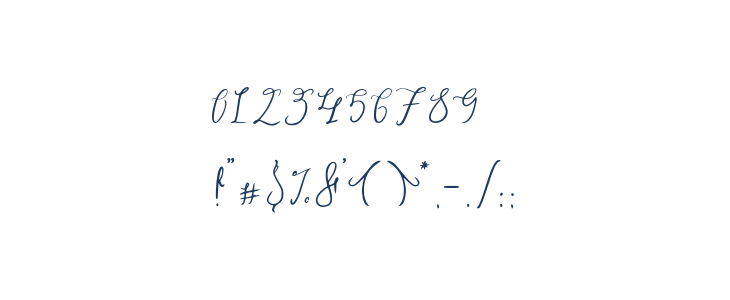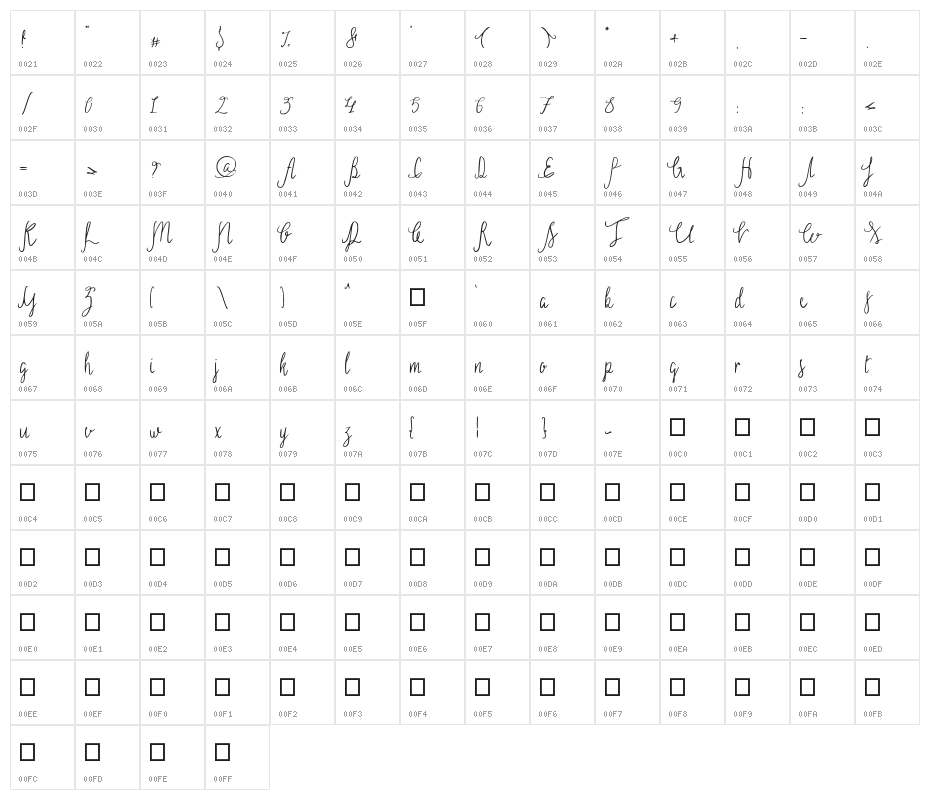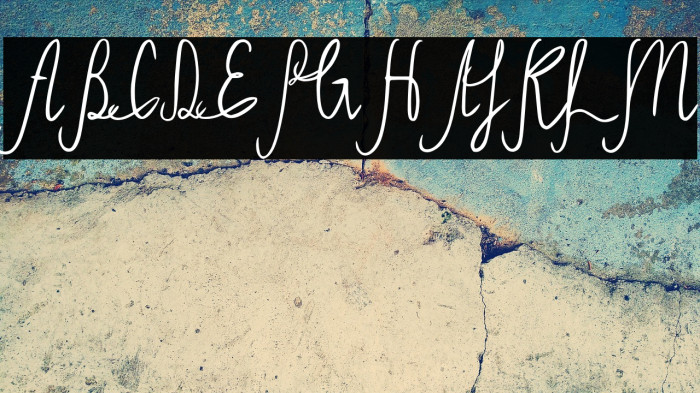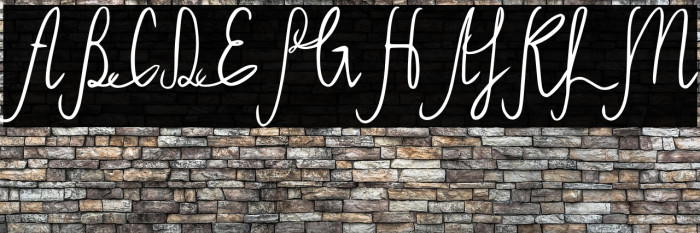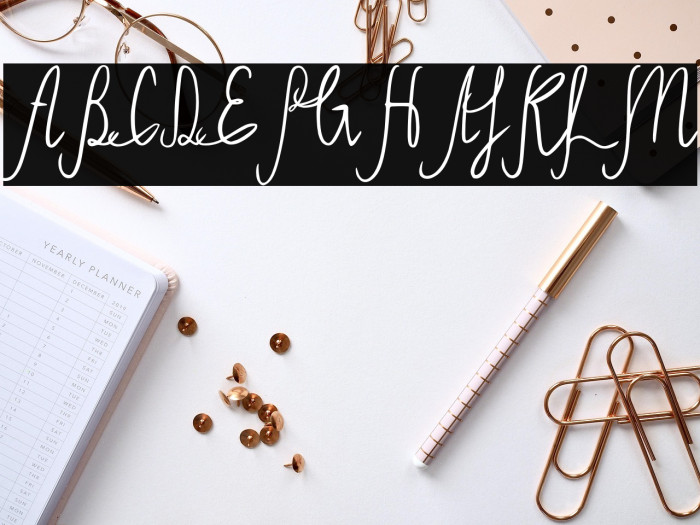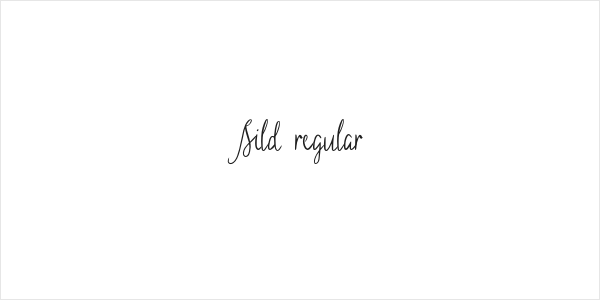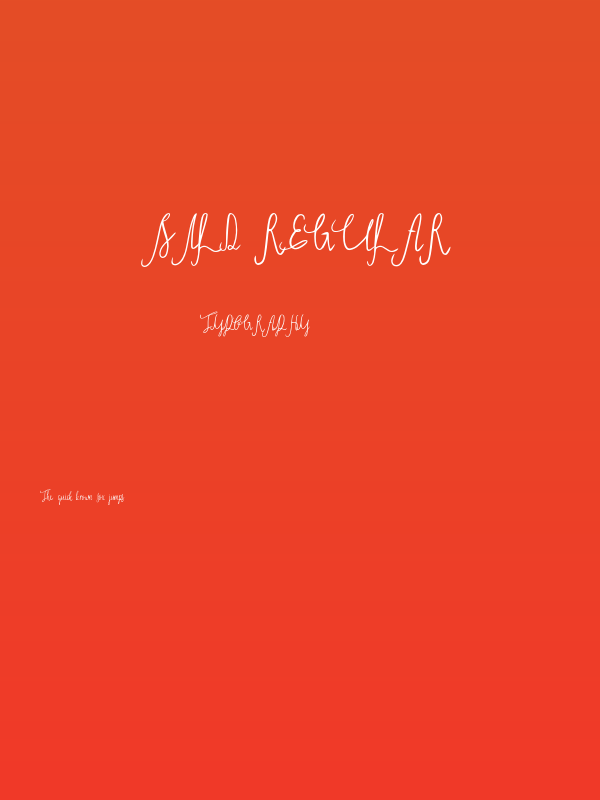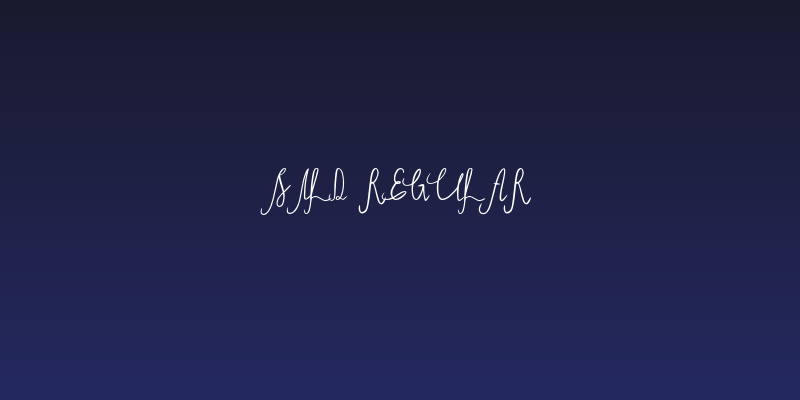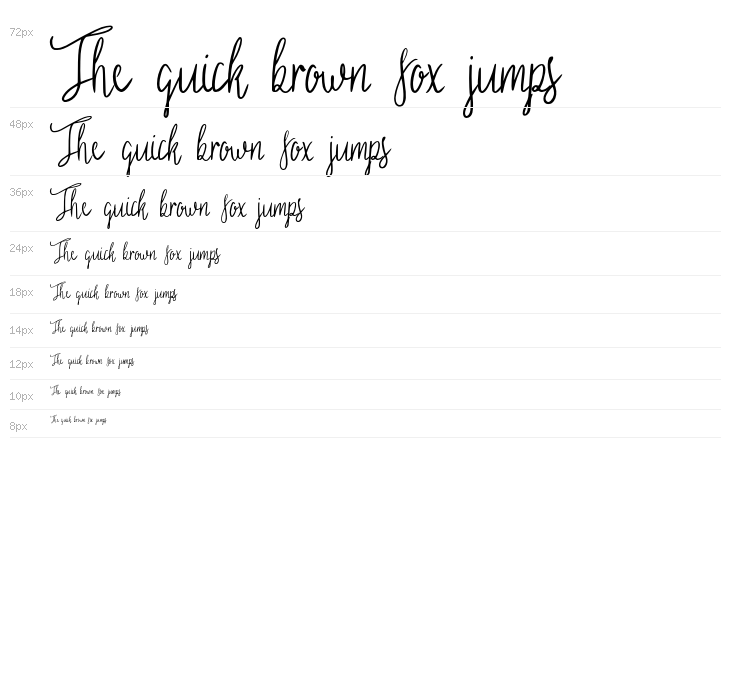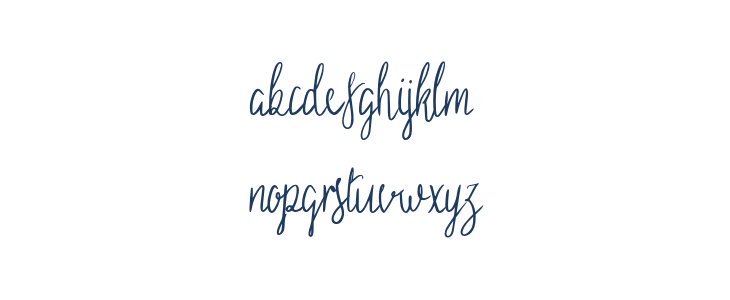
Sild regular Font
Sild regular Description
This font exudes a playful and elegant handwritten style, characterized by its fluid and cursive letterforms. The strokes are smooth and slightly whimsical, with a consistent flow that gives it a lively and dynamic appearance. The uppercase letters are tall and slender, while the lowercase letters maintain a charming, flowing continuity. The numbers and special characters complement the overall style with their own unique flair, adding to the font's versatility. This font is perfect for projects that require a personal touch, such as invitations, greeting cards, or branding materials that aim to convey warmth and creativity.
| Use Case | Headlines, Logos, Invitations |
| Proposed Projects | Ideal for invitations, greeting cards, personal branding, and creative projects. |